I have been using Ubuntu for a while. I like it. I like it a lot.
But once in a while, when I switch to Windows, I feel better because I really like the font. It feels really much pleasant to watch windows font.
I installed windows fonts on my system and changed all the the default font settings to Tribuchet 10pt from Sans. It feels better, but still not as good. Oh, BTW, I love the default ubuntu console font. Monospace 10 really rocks. But Sans, oh please.
What is the default font on Windows. How do I enable it on Ubuntu. If it is paid, licensed, or illegal, I don't care, I just want better fonts on my Ubuntu system.
And, also, on a Laptop with LCD screen, should Sub-Pixel Smoothing be enabled?
Update: I tried different fonts for a while on my system, and I think I could do a lot better. I am far from satisfied.
• The default Sans font, is Ugly, imho.
• The Arial, Tribuchet MS and some other MS fonts, don't render properly, Tribuchet MS has a problem with e. An extra line on top. I hate it.
• The good windows fonts Tahoma, Segoe, Callbiri, Cambria all render poorly, due to lack of cleartype.
• Trying to use this xml, in .fonts.conf that is supposed to magically make rendering smooth, does nothing more than turn on sub pixel smoothing.
• Turning on sub-pixel smoothing makes the font bold at the cost of clear shapes, it is a turn off. The otherwise awesome Monospace font also looks bad.
What is the best font I can have on my Ubuntu system. It is alright if it is commercial and expensive. I could do with better font typefaces.
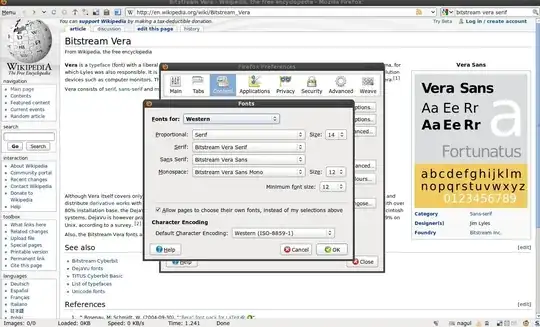
• When choosing the subpixel ordering for your monitor see http://www.lagom.nl/lcd-test/subpixel.php for sample images and text generated for each of the four layout possibilities (RGB, VRGB, BGR, VBGR) - that page also has the helpful advice that the default of RGB is usually right (and it was for me) – Tom Goodfellow Apr 14 '15 at 09:31
I also like Windows fonts much better than the defaults on any Linux distributions. Well, at least the Windows XP default, Tahoma. (Also, I prefer no antialiasing at all for small font sizes, when using good TrueType fonts. Your mileage may vary!)
These days I find it very easy to get nice fonts in Ubuntu. (Gone are the days of needing to recompile Freetype with a certain option (I forget which) to get them right.)
• And personally I find that having `gnome-settings-daemon` running makes the font sizes *just right*. (I don't know why exactly, and YMMV.) – Jonik Jan 15 '10 at 16:40
• For those who, like me, prefer TrueType fonts with no antialiasing, also check out this problem which I just got solved: http://superuser.com/questions/54216/how-to-get-firefox-to-use-ms-truetype-fonts-for-helvetica-times-etc/54224#54224 With that advice you can make some websites look a lot better on Linux. – Jonik Feb 12 '10 at 07:51
I do as your guide (install mscorefonts) and fc-cache then set fonts in Appearance -> Fonts (my system is Ubuntu 10.4) But the font still does not look as good as your image. Did you have any additional steps such as settings in Firefox ? – ramcrys Mar 08 '13 at 10:54
It is probably better to stay away from MS fonts in possible and find standard replacementent for each font. Although this requires manual work and some fonts (e.g. Corbel) do not have well defined replacements AFAIK.